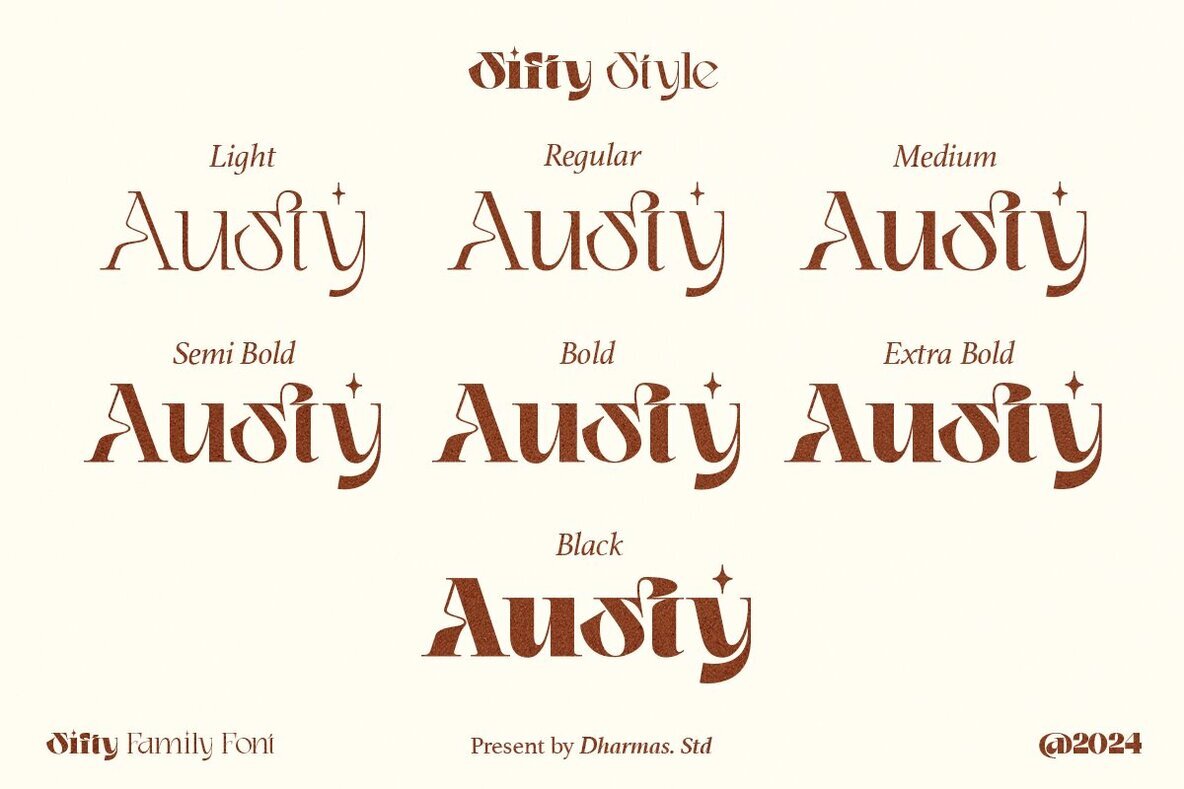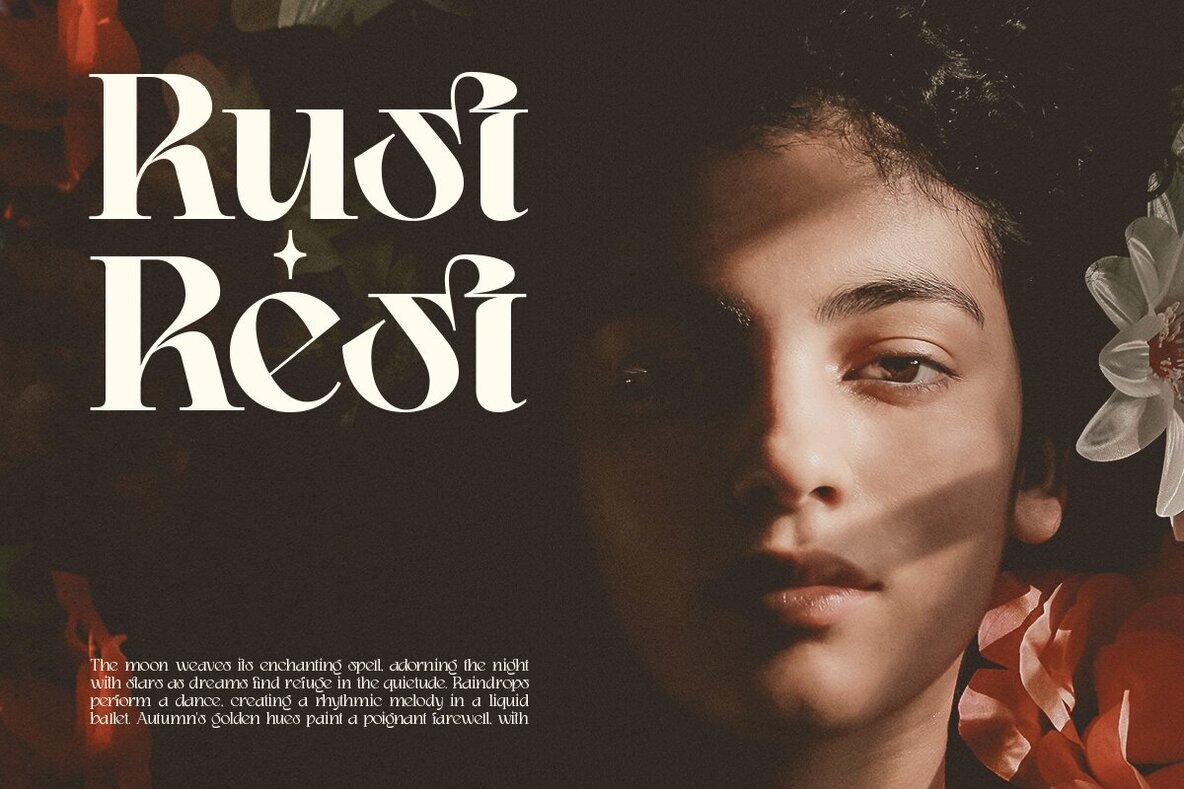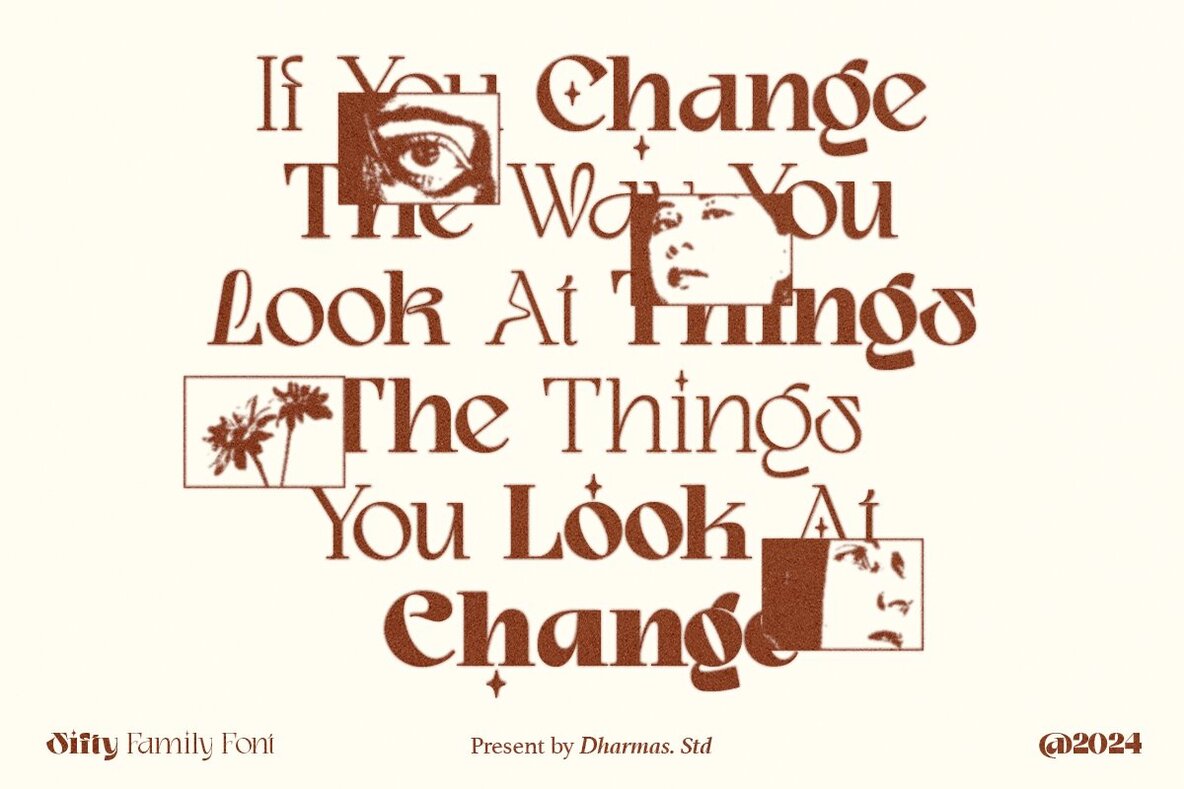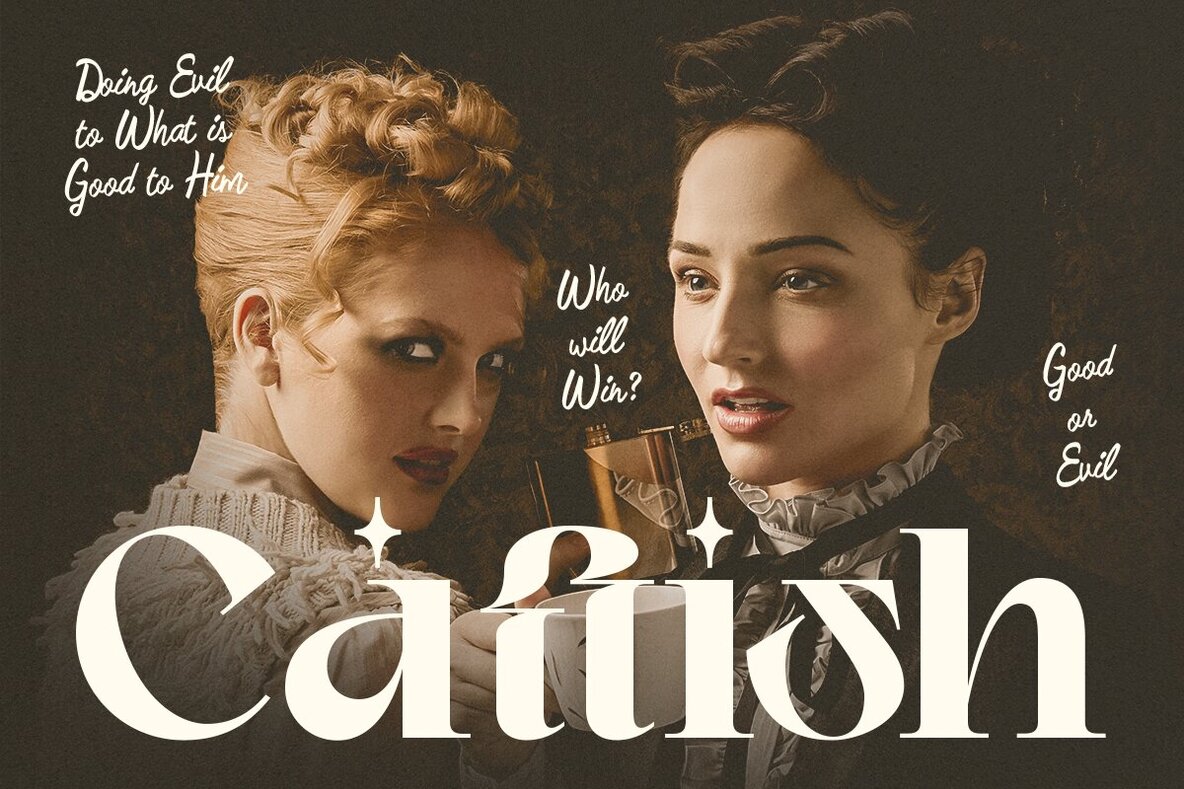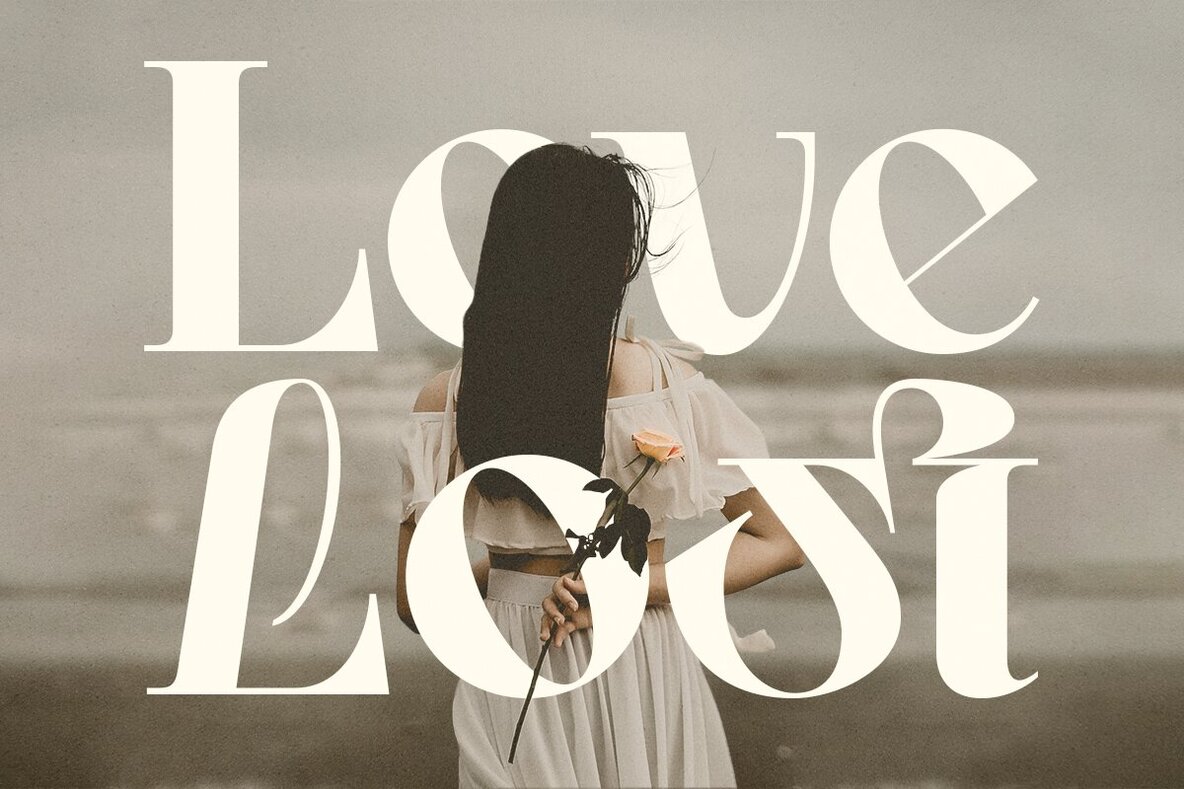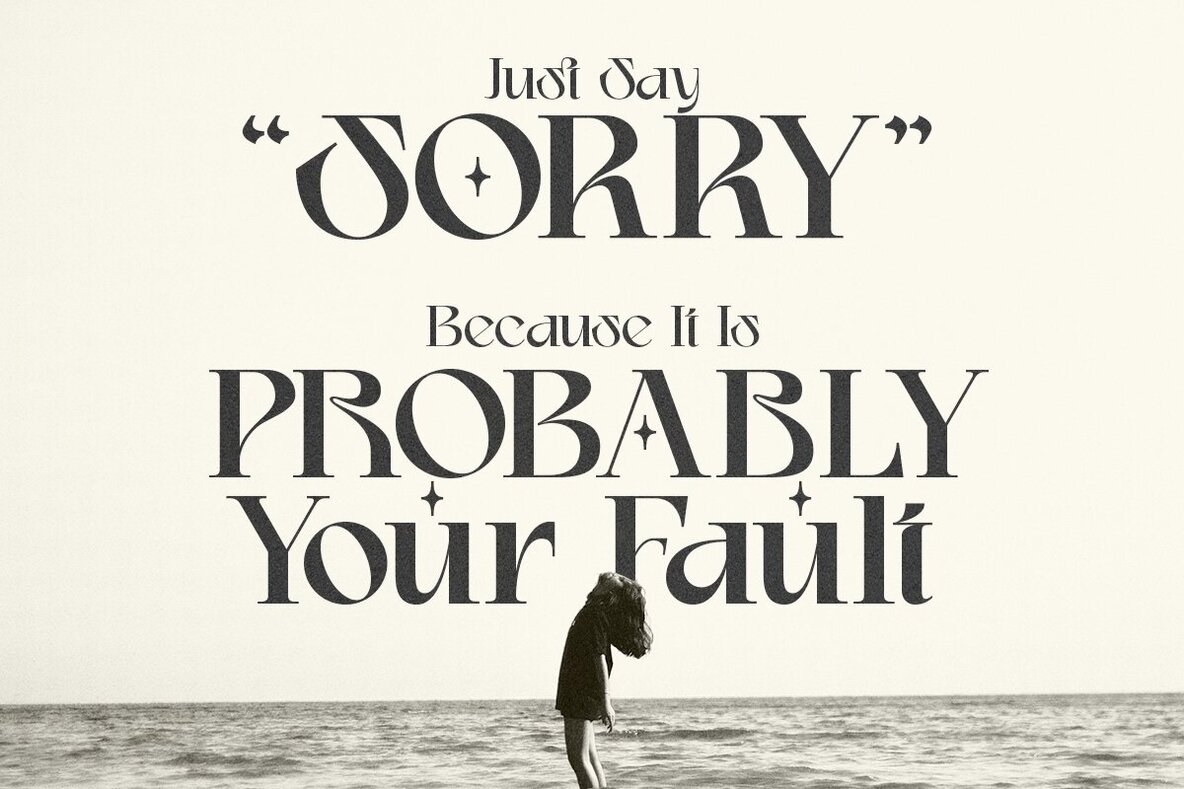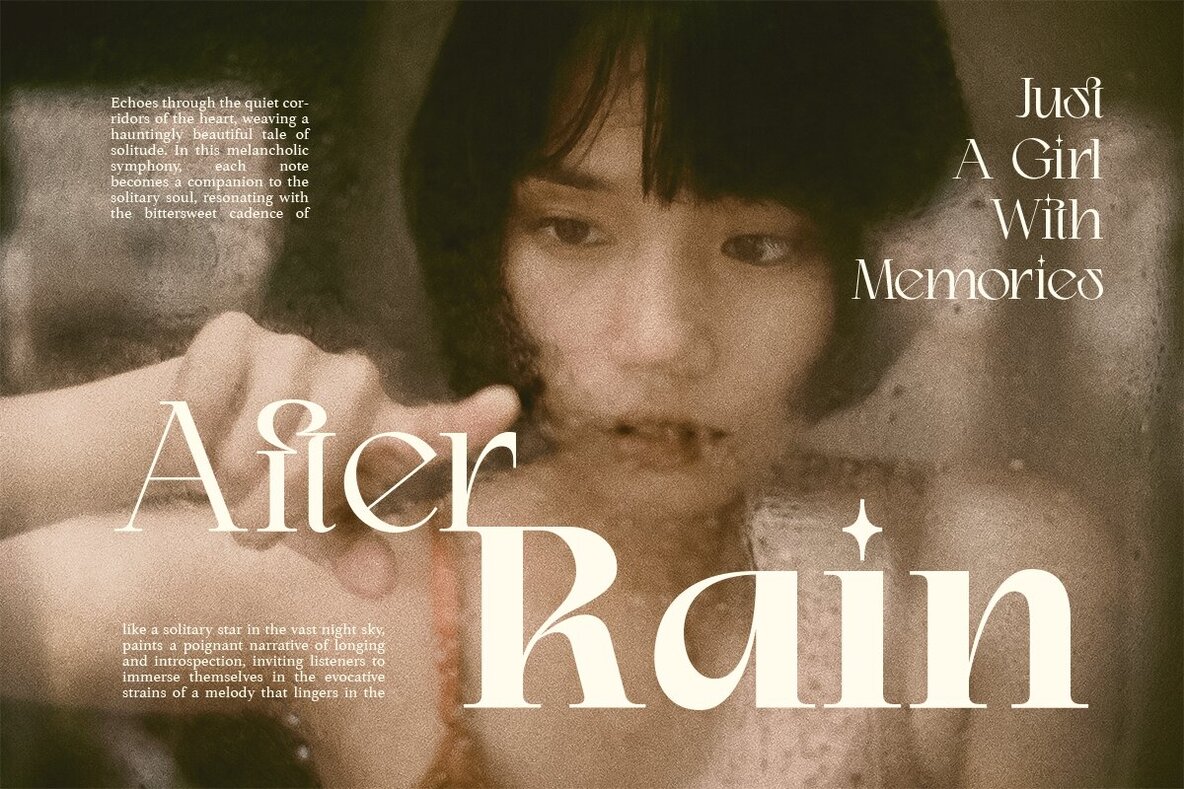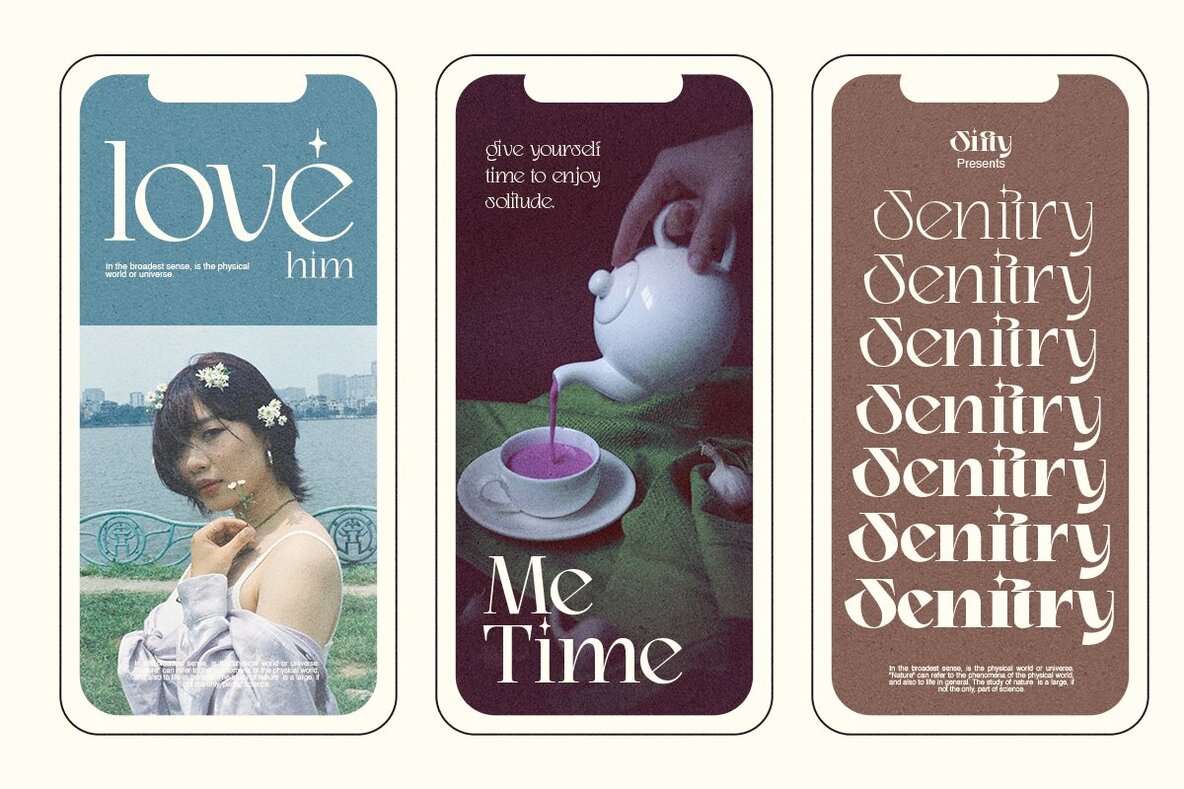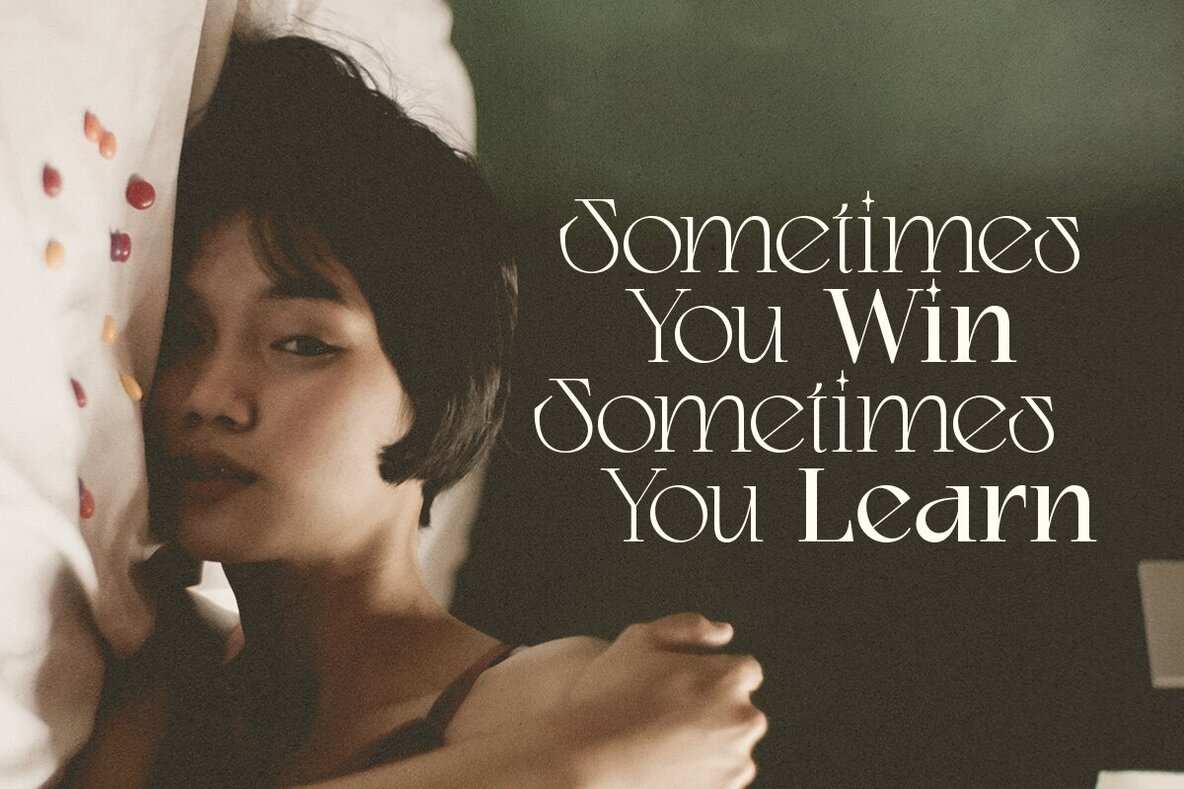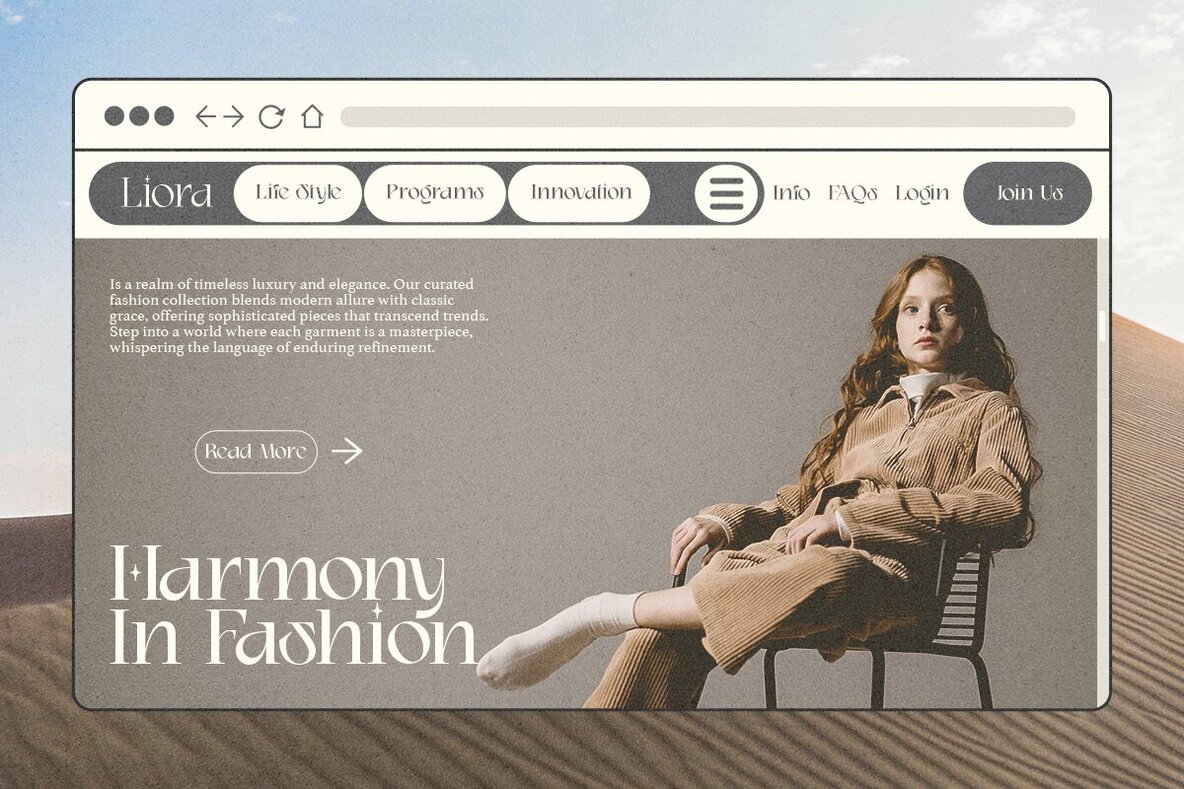
Sifty Font
Sifty by Dharmas Studio offers a fresh take on display serifs with its distinct and unconventional letter shapes. This modern serif family is inspired by the stylish aesthetics of the 80s and 90s, bringing a touch of nostalgia to contemporary design projects. Sifty includes seven style families, ranging from Light to Black, and features unique ligatures that enhance its appeal. It's perfect for a variety of design applications, including headlines, logos, user interface design, magazine texts, and product descriptions. Sifty supports a wide array of languages, including Danish, English, Estonian, Filipino, Finnish, French, Friulian, Galician, German, Gusii, Indonesian, Irish, Italian, Luxembourgish, Norwegian Bokmål, Norwegian Nynorsk, Nyankole, Oromo, Portuguese, Romansh, Rombo, Spanish, Swedish, Swiss-German, and Uzbek (Latin). Dharmas StudioSifty: A Modern Serif with Unique Flair
Versatile Style Options
Comprehensive Features
Broad Language Support